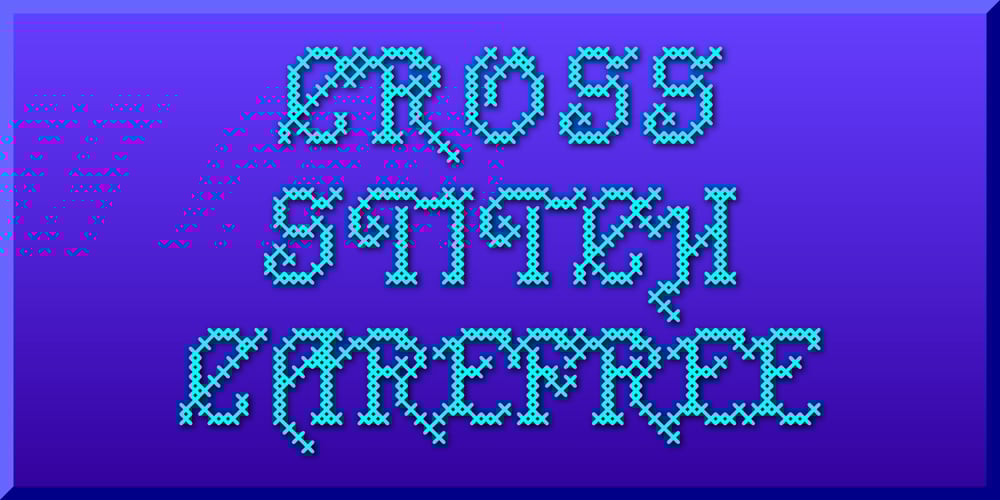
Cross Stitch Carefree
Cross Stitch Carefree font
Cross Stitch Carefree Font Family was designed by Gerald Gallo and published by Gerald Gallo. Cross Stitch Carefree contains 1 styles and family package options. Cross Stitch Carefree is based on upper case characters 10 stitches tall and contains the characters A-Z and period. Several characters extend above the capital line or below the base line.